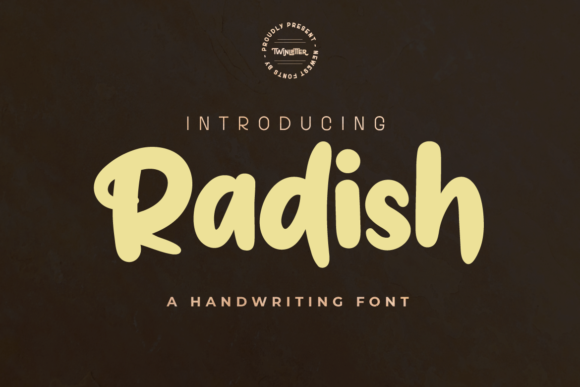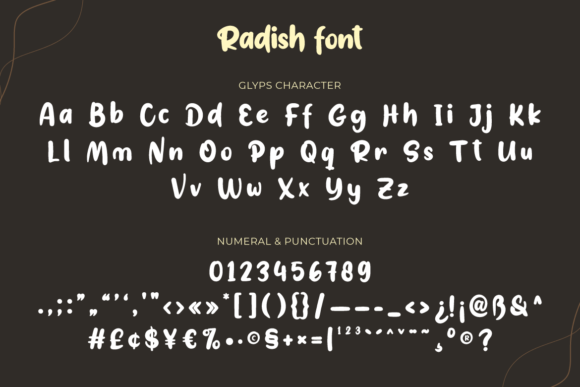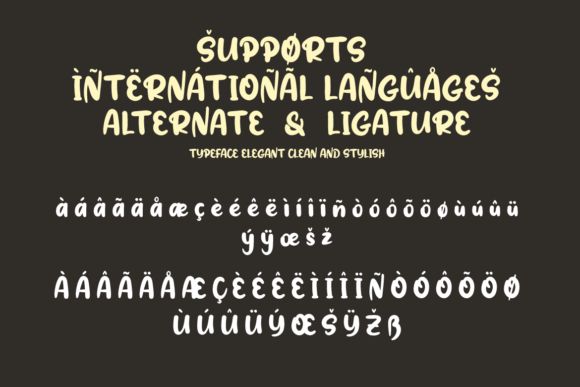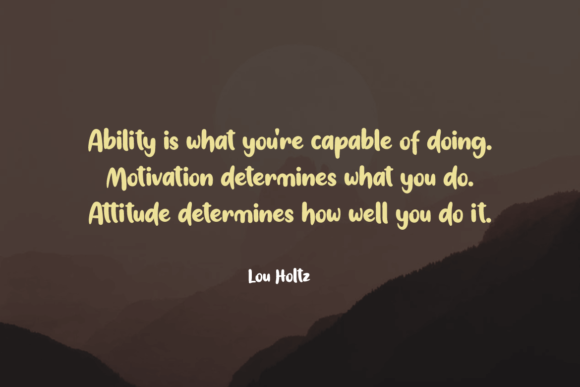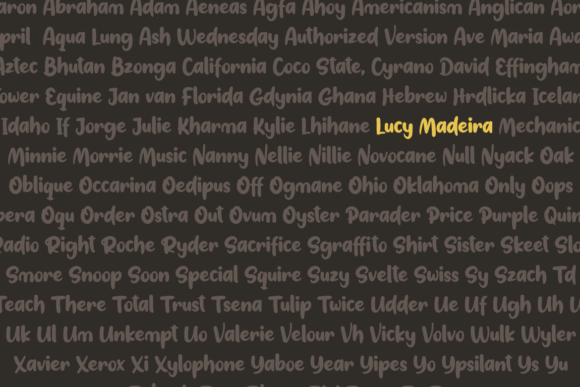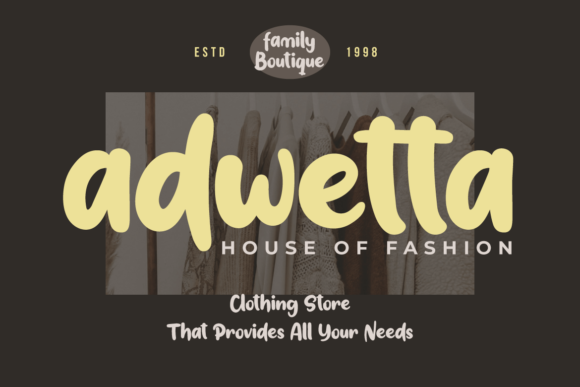
About Radish Font
Introducing “Radish,” a relaxed and flowing handwritten font that brings a casual and laid-back vibe to your designs. With its thick letterforms and smooth curves, this font is a perfect choice for creating eye-catching logos, branding materials, and quotes.
Radish is designed with care, ensuring that every letter has its own unique and beautiful touch. The handcrafted nature of the font adds a sense of authenticity and warmth, making it perfect for projects that require a friendly and approachable feel.
Whether you’re designing a logo for a trendy brand, creating branded quotes for social media, or adding a touch of personality to your marketing materials, Radish will make your designs come alive. Its relaxed style sets a welcoming tone and captures attention, ensuring that your message resonates with your audience.
The font’s versatility allows it to be used in a variety of design contexts. From bold and vibrant designs to more subtle and minimalist compositions, Radish adapts to your creative vision. Its legibility remains strong, ensuring that your message is easily readable while adding a touch of character and charm.
Working with Radish is a breeze. The font is easy to use, allowing you to experiment with different letter combinations and layouts. The smooth flow of each letter provides a natural and organic look, adding a sense of fluidity to your designs.
Overall, Radish is a relaxed and flowing handwritten font that adds a unique style to your designs. Its distinctive and beautiful letterforms, along with its versatility, make it a great choice for creating eye-catching logos, branding materials, and quotes. Let Radish bring a laid-back and inviting vibe to your next design project!